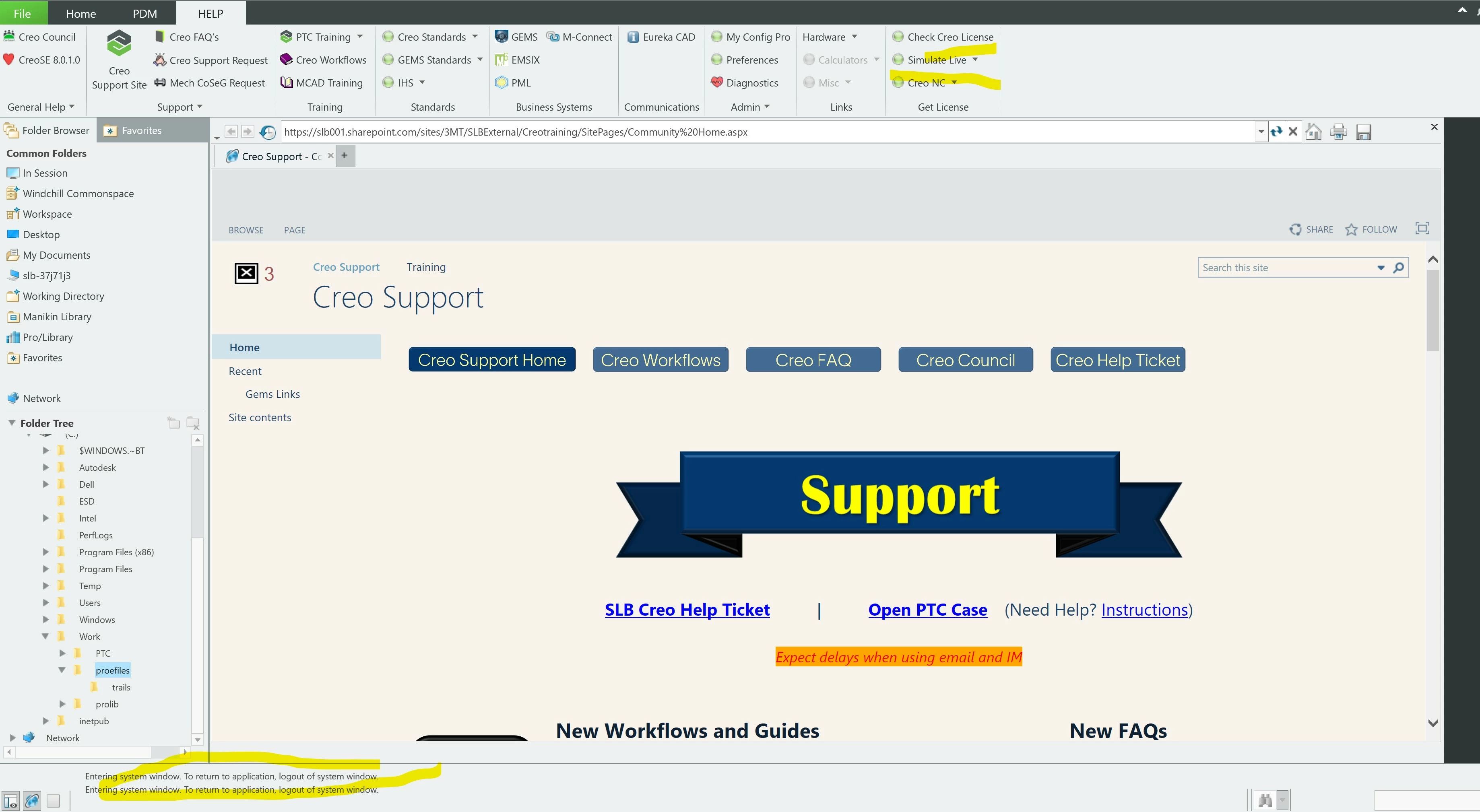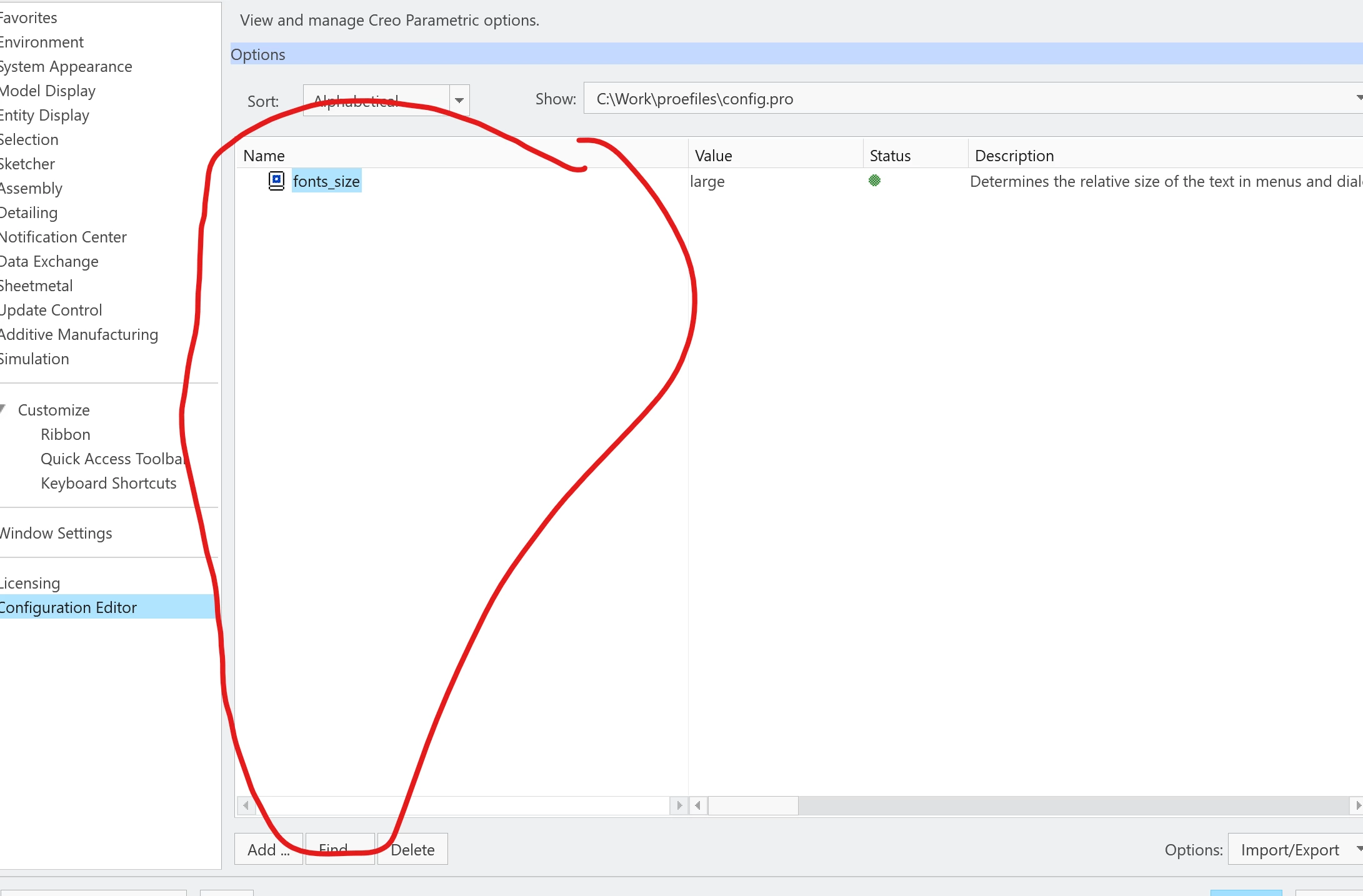
Creo UI font size
As per the original post.
Newbie here. How  can I increase the font size in the "Message Log Bar". Also, need to increase font size in dimensioning dialog in modelling.
I think I lost my config settings when i tried to fix myself. See screenshots.
This is the stuff I have in my config.pro that pertains to fonts. I like to have a monospaced font so that my relations text looks more organized, more like programming code.
! - - - - - - - - - - - - - - - - - - - - - - - - - - - - - - - - - - - - - - -
! Category : User Interface
!
! The font setting affects most of the text in the program, most importantly
! for me, the relations editor. The necessary characteristics needed:
!
! * Monospaced (makes indentation noticeable)
! * Zeros have `slash`
! * `i`, `I`, `l`, and `1` are distinct
!
! A list of possible candidates:
!
! Font Name Option(s) Comments
! --------- --------- --------
! Code New Roman : 10 Clear, zeros dot
! Consolas : <none> Reasonably nice
! DejaVu Sans Mono : <none> Uses dot for zero
! Fira Mono : <none> Not sizeable (?), zeros dot
! FixedSys : <none> Old DOS console window style
! Inconsolata : <none> Bit hard to read
! Liberation Mono : 8 Clearest, zeros dot
! Monaco : <none> Characters like = are tough to see
! Terminal : <none> Crude, not really recommended
! Ubuntu Mono : 10 Acceptable, nothing special
!
relation_file_editor editor
default_ui_font DejaVu Sans Mono
fonts_size small
menu_font Tahoma
model_tree_font Tahoma
popuphelp_font Tahoma
Maybe some of these will apply to what you're looking for. The lines that begin with a "!" are comments. Lots of them, so I provide future me with some notes as to what I've tried, etc.
There might be more font options that can be set, but I haven't used them. You'll have to search about for the configuration options that apply in some way to the UI or fonts.
This did not work in my case. It still does not adjust the font size in the "MESSAGE LOG".
Found another post that stated to change the HIGH DPI Setting on the parametric exe. Change to system. Increased the size of the ribbon bar and the UI interface. However it is a little blurry.